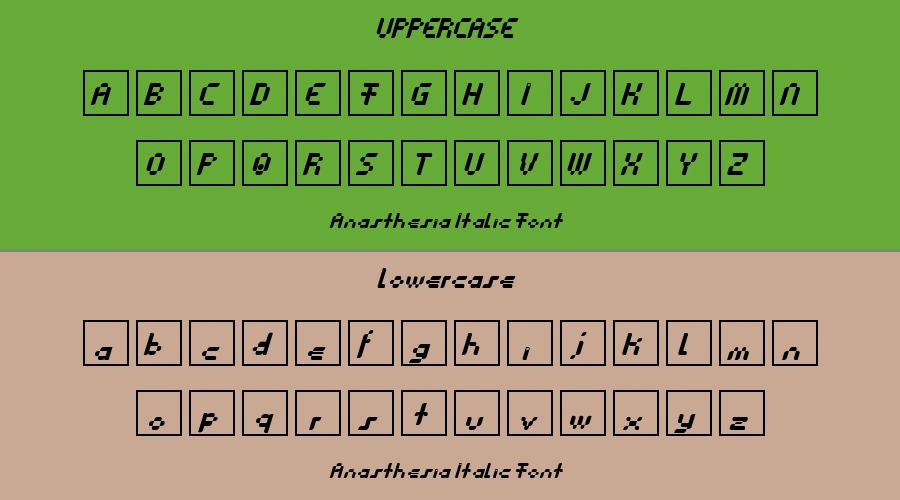
About Anasthesia Italic Font
Anasthesia Italic Font represents a sophisticated approach to type design, balancing calculated proportions with consistency. Perfect for medical texts, this font family showcases impressive personality and uniqueness throughout its character set. Designers appreciate its versatility and reliability.
Designers will appreciate nuanced touches including humanist proportions and initial forms, adding sophistication to any project. These features become apparent in brand statements, where numerical alignment matters most. The careful treatment of serif length and regulatory compliance ensures optimal performance.